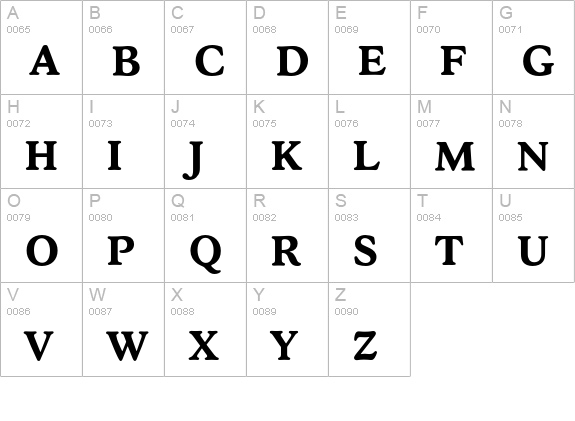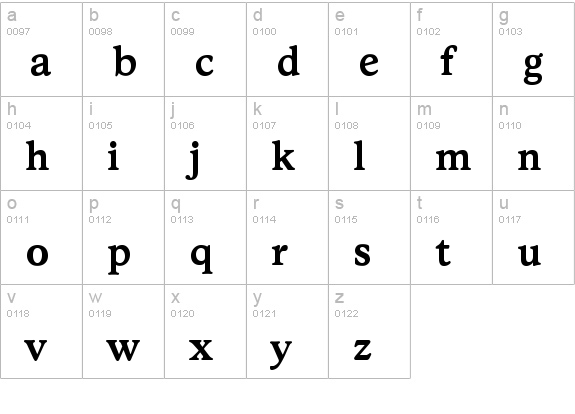
Stratford-DemiBold Font Details
Stratford-DemiBold is a sub-bold, structured variant in the Stratford typeface family \xE2\x80\x94 well suited to sub-headlines and emphasised passages.
Stratford-DemiBold font is a versatile and modern typeface that exudes confidence and sophistication. With its prominent weight and clean lines, this font is perfect for making a bold statement in any design project. Whether used for headlines, titles, or branding, Stratford-DemiBold commands attention and leaves a lasting impression. The best part? This exceptional font is available for free download at FontsMarket.com. Now you can elevate your designs without breaking the bank. Don't miss out on the opportunity to add this stunning typeface to your collection today and take your projects to the next level.